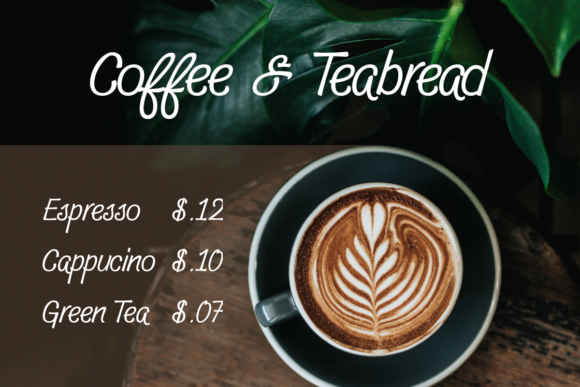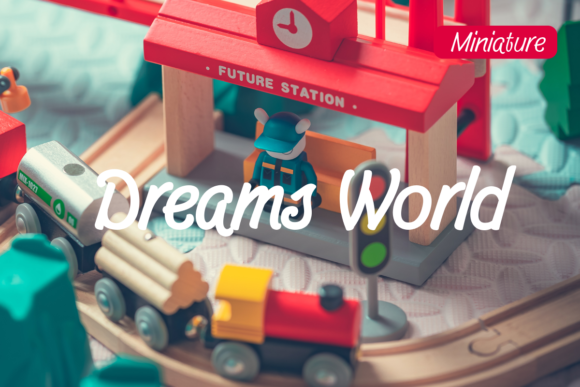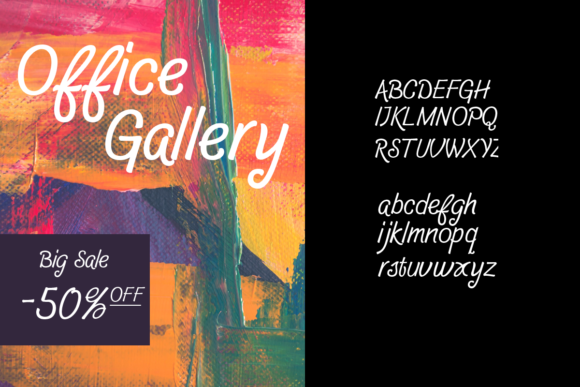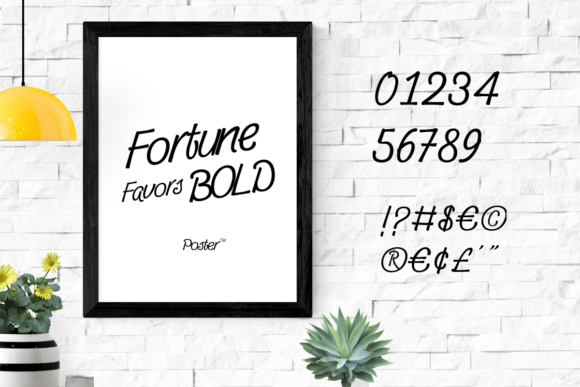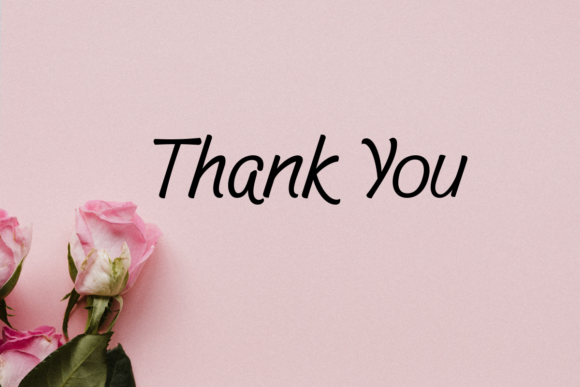
Astilebe Font: The Perfect Choice for Designers and Crafters
Are you looking for a font that exudes a sense of casual charm and versatility? Look no further than the Astilbe Font. This beautifully balanced, handwritten font is perfect for designers and crafters who want to add a touch of warmth and personality to their projects. In this article, we’ll take a closer look at the Astilbe Font, its features, and how it can elevate your designs.
What is Astilbe Font?
Astilbe is a lovely handwritten font that boasts a well-balanced and elegant appearance. Its casual charm makes it appear wonderfully down-to-earth, readable, and incredibly versatile. Whether you’re working on a busy background or using it as a standalone headline, Astilbe Font is sure to make a statement.
Key Features of Astilbe Font
- Handwritten appearance: Astilbe Font has a beautiful, handwritten appearance that adds a touch of personality to any project.
- Well-balanced: The font is carefully crafted to ensure that it is well-balanced and visually appealing.
- Versatile: Astilbe Font is incredibly versatile and can be used in a variety of contexts, from busy backgrounds to standalone headlines.
- Readable: The font is designed to be highly readable, making it perfect for use in body text or captions.
Why Choose Astilbe Font?
So, why should you choose Astilbe Font for your next project? Here are just a few reasons:
- Unique personality: Astilbe Font has a unique personality that sets it apart from other fonts. Its handwritten appearance adds a touch of warmth and personality to any project.
- Flexibility: The font is incredibly flexible and can be used in a variety of contexts, from digital projects to print materials.
How to Use Astilbe Font
Using Astilbe Font is easy. Here are a few tips to get you started:
- Pair it with other fonts: Astilbe Font pairs well with other fonts, including sans-serif and serif fonts.
- Use it for headlines: The font is perfect for use in headlines, where its bold and playful appearance can really shine.
- Use it for body text: Astilbe Font is also highly readable, making it perfect for use in body text or captions.
Design and Crafting Applications
Astilbe Font is perfect for a variety of design and crafting applications, including:
- Digital projects: The font is perfect for use in digital projects, such as website designs, social media graphics, and email marketing campaigns.
- Print materials: Astilbe Font is also perfect for use in print materials, such as brochures, flyers, and business cards.
- Crafting projects: The font is perfect for use in crafting projects, such as handmade cards, scrapbooking, and DIY home decor.
In conclusion, Astilbe Font is a beautifully balanced, handwritten font that is perfect for designers and crafters. Its casual charm, versatility, and readability make it an excellent choice for a variety of projects. Whether you’re working on a digital project, print materials, or crafting projects, Astilbe Font is sure to elevate your designs and add a touch of personality.